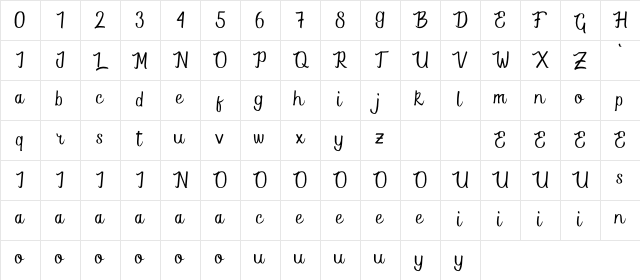
Jallarre Script Free Regular
Foundry: sixtwenty studio
Designer: M Ansori Zakaria
Design Context for Jallarre Script Free
Jallarre Script Free flows with the natural rhythm of handwritten lettering, making it ideal for designs that call for warmth and personal expression.
Font Pairing: Combine Jallarre Script Free with a simple geometric sans for maximum contrast - the tension between flowing curves and clean structure is a classic typographic pairing.
Pro Tip: Use Jallarre Script Free for short runs of text - names, titles, or taglines. Extended body copy in script faces tires the eye quickly.